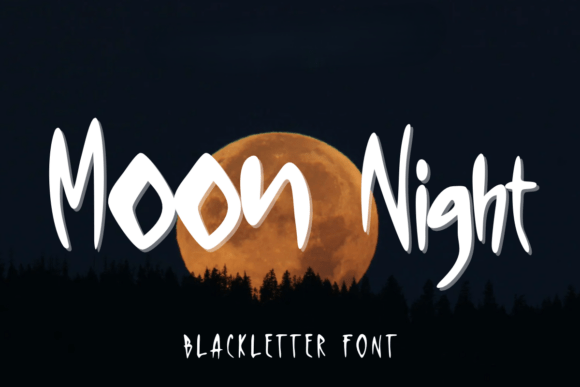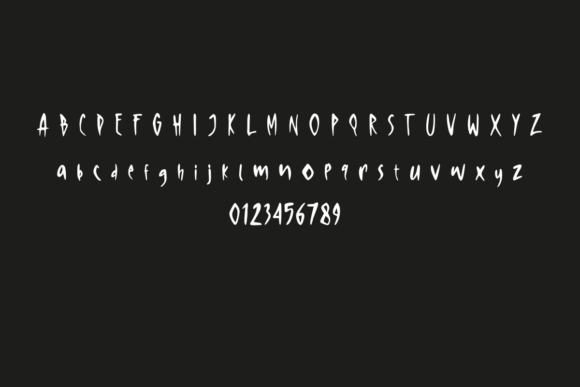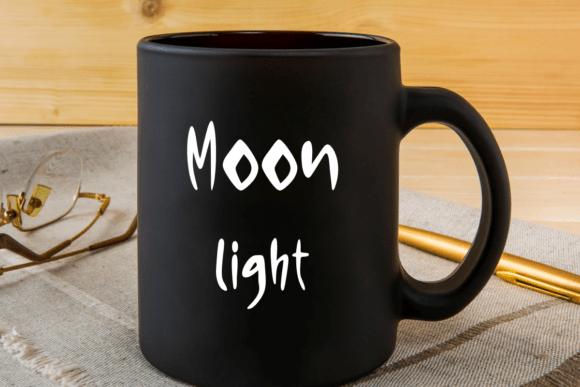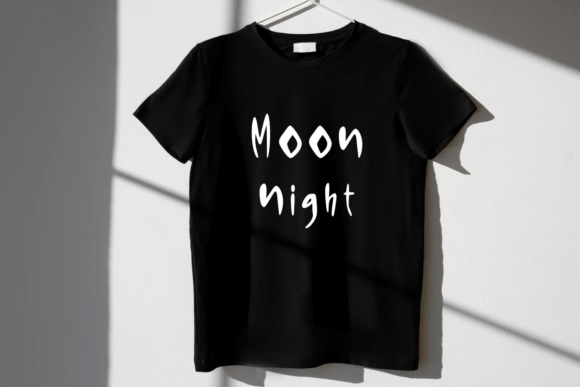
Moon Night Font
About the Moon Night Font
Presenting Moon Night Font, a unique and stylish typeface that will make your work stand out. Moon Night
is a whimsical blackletter-inspired font with a brush-like flow, combining a moody elegance with a modern, hand-drawn edge. The elongated letterforms and subtle irregularities evoke the mystery of moonlit forests and enchanted tales, making it perfect for fantasy projects, Halloween themes, storybook covers, and atmospheric branding.
Moon Night excels in headlines, short text blocks, and branding applications where its whimsical nature can shine. It’s ideal for projects needing a touch of dark fantasy or enchanting mystery—think book covers, posters for atmospheric events, or logos for brands with a sophisticated, slightly edgy feel. Avoid using it for body text or lengthy paragraphs; its irregular forms hinder readability in larger quantities.
Pairing Moon Night with a clean sans-serif like Montserrat or a geometric sans-serif like Futura adds a modern counterpoint, balancing its elaborate forms. For a warmer feel, consider pairing it with a classic serif like Garamond or a script font with a similar elegant but less whimsical hand-drawn quality, such as Great Vibes.
The overall personality of Moon Night is moody, elegant, and slightly whimsical, making it a strong choice for brands aiming for a sophisticated yet imaginative image. Its hand-drawn quality offers a touch of approachability while maintaining a high level of visual interest.
Moon Night Font Usage Examples
Moon Night Font Example